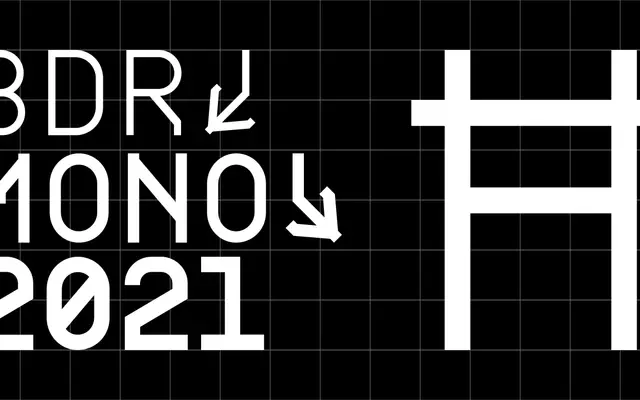
BDR Mono 2021
Type Different · Lopetz · 2021
An all-caps monospaced family from Büro Destruct's Lopetz, updated in 2021 with a rounded subfamily and full Western and Central European character support.
Originally a single-weight Mac PostScript Type 1 font from 1999, BDR Mono grew to include Light, Regular and Bold weights in 2006 before this 2021 revision added a parallel Rounded subfamily. The six-style family covers broad Latin coverage for European languages from Icelandic to Turkish. Its fixed-width, uppercase geometry suits display, signage and screen work with a functional Swiss edge.
An uppercase monospaced typeface originally from 1999, now offered in Normal and Rounded subfamilies. Its fixed-width, geometric construction places it squarely in the mono category.